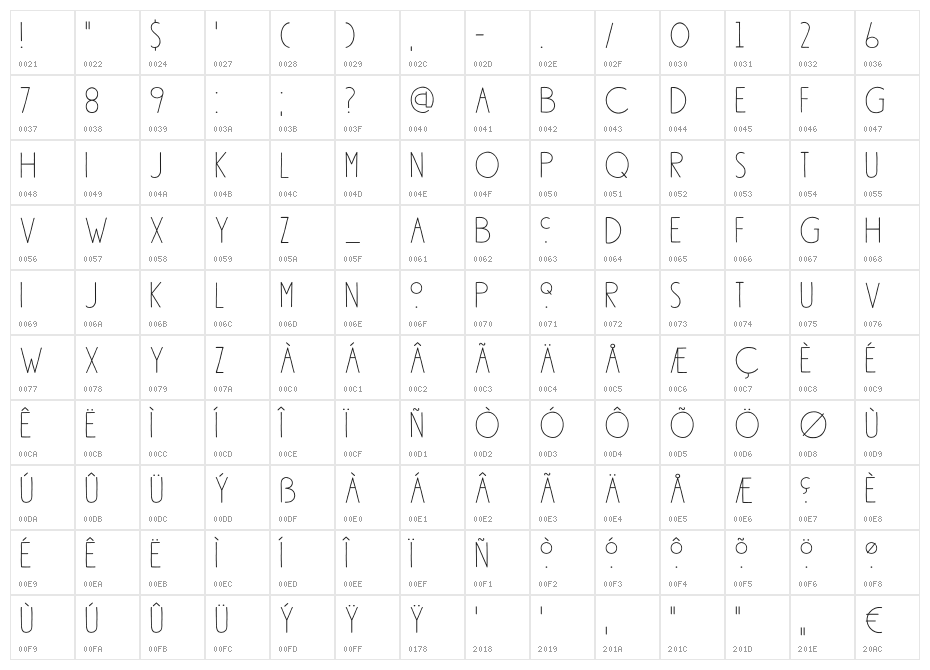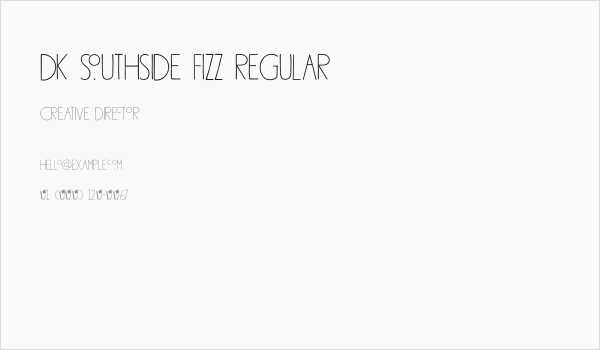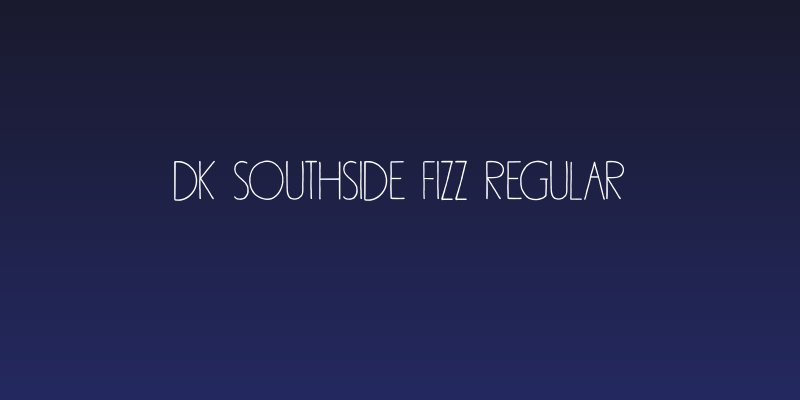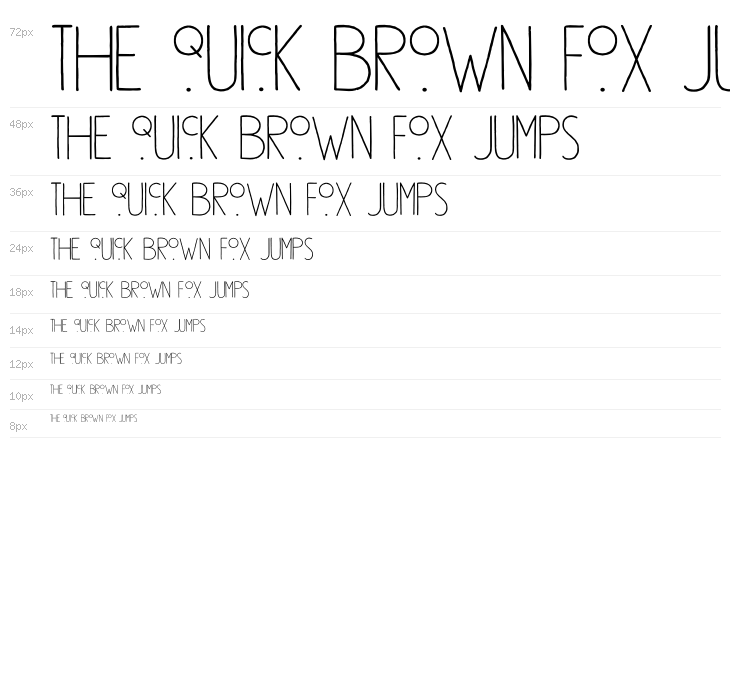
DK Southside Fizz Regular Font
DK Southside Fizz Regular Description
This font features a unique and playful design with tall, narrow letters that have a hand-drawn quality. The uppercase and lowercase letters are consistent in style, with a slight whimsical touch that adds character. The numerals are distinct and maintain the same playful aesthetic. Special characters are creatively integrated, with some incorporating graphic elements that enhance the font's artistic appeal. Overall, this font combines a modern and artistic style, making it suitable for creative projects.
| Overall Style | Artistic, Modern |
| Proposed Projects | Ideal for creative projects such as posters, invitations, and branding materials that require a unique and artistic touch. |